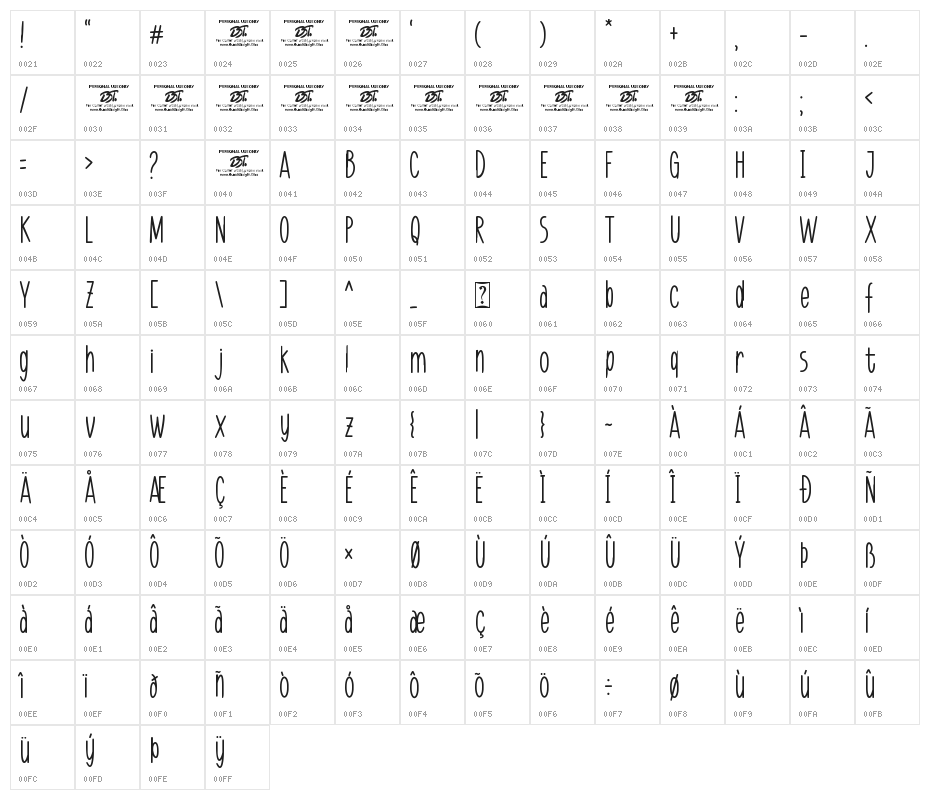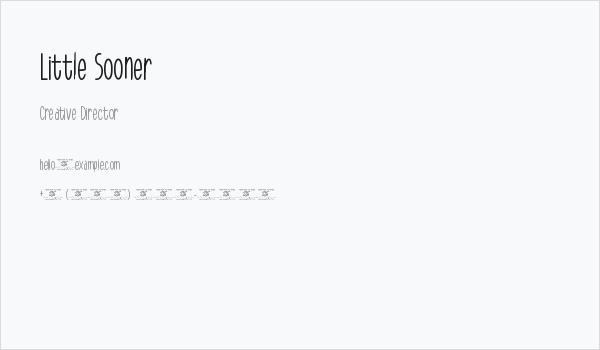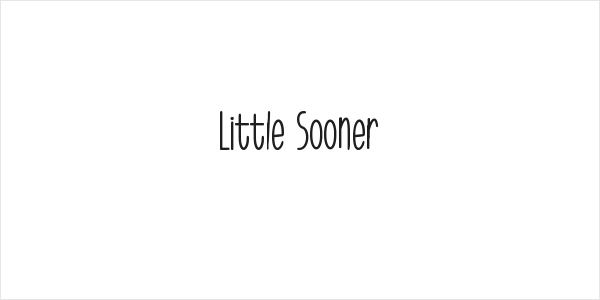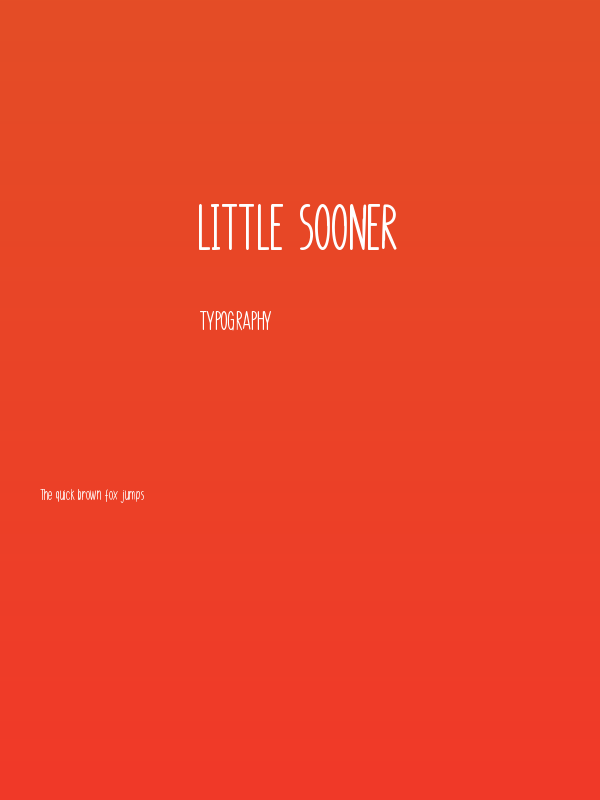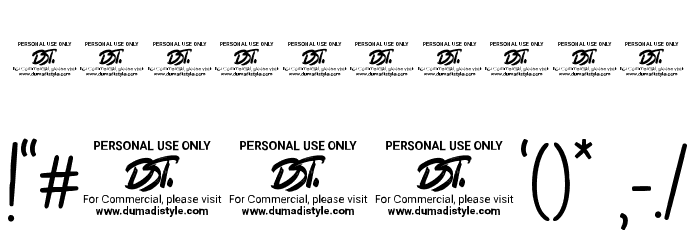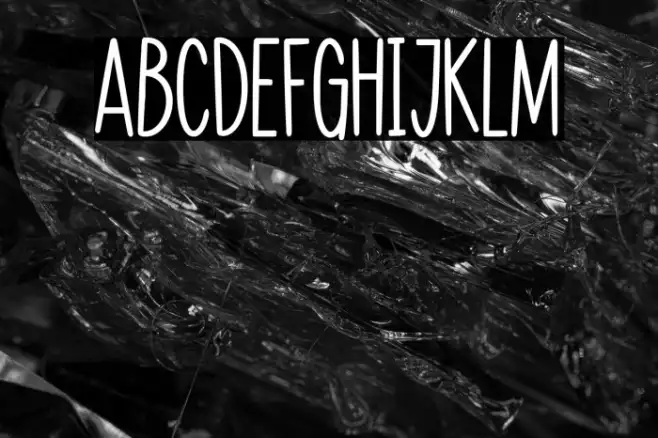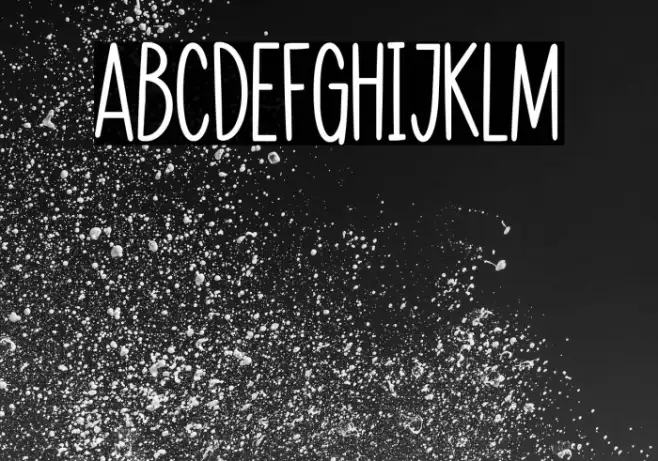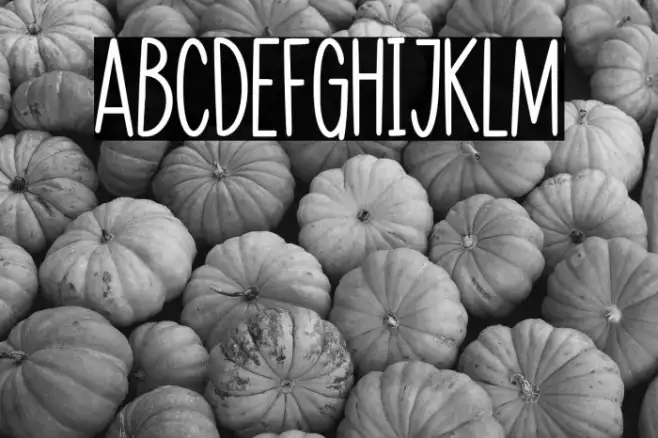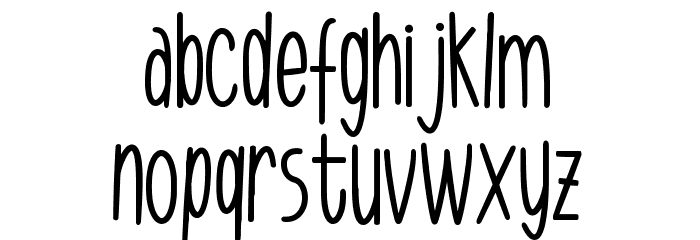
Little Sooner Font
Little Sooner Description
This font features a playful and whimsical style with tall, narrow letters that have a hand-drawn appearance. The characters are slightly irregular, adding a casual and friendly feel. The uppercase and lowercase letters maintain a consistent height, while the numbers and special characters complement the overall design. The strokes are smooth and rounded, contributing to its approachable aesthetic. This font is ideal for projects that require a touch of personality and charm.